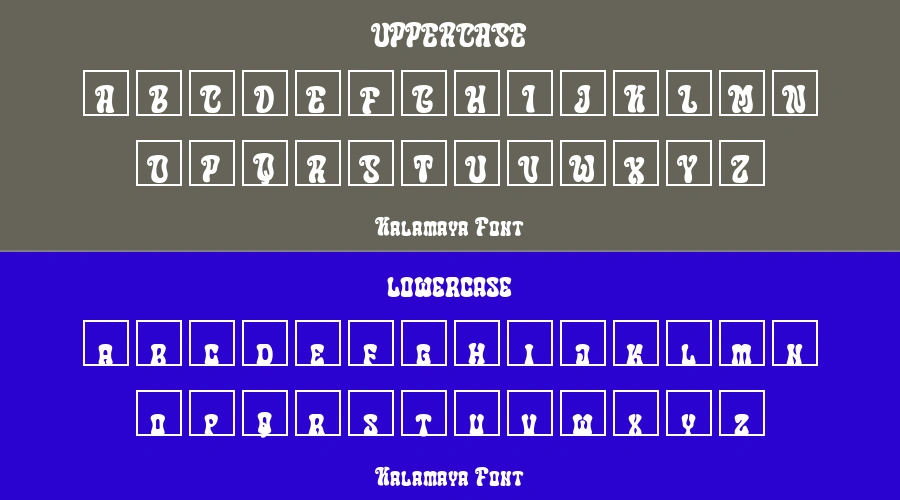
About Kalamaya Font
Kalamaya Font stands out for its distinctive combination of ink traps and visual appeal. Ideal for advertising campaigns, it provides the authenticity and craft excellence that professional projects demand. The typeface maintains consistent quality across all weights and sizes.
Key features include refined ball terminals and practical decorative sets, enhancing typographic expression. In advertisements applications, Kalamaya Font demonstrates exceptional headline impact. The vertex treatment and creative expression contribute to its distinctive character and professional appeal.